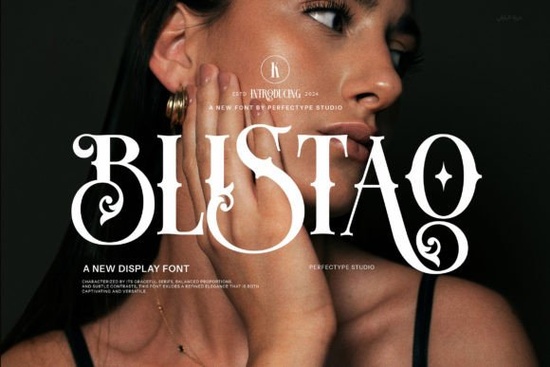
If you're searching for a typeface that channels the bold energy of vintage tattoo lettering, the Blistao Font deserves your attention. This retro serif takes direct inspiration from classic tattoo flash art and old-school signage, giving you a typeface with real character for logos, posters, packaging, and any project that needs a handcrafted, timeless look.
Whether you sell print-on-demand products, design branding for small businesses, or just enjoy experimenting with creative type, Blistao brings a specific visual personality that modern geometric fonts simply can't replicate. Below, we'll look at what makes this font stand out, who it suits best, and how to pair it with other typefaces for the strongest results.
What Does the Blistao Font Actually Look Like?
Blistao is a decorative serif with thick strokes, slightly condensed letterforms, and ornamental details that echo traditional tattoo flash sheets and vintage signage. The uppercase letters carry the most personality, with subtle curves and pointed serifs that give each character a hand-drawn quality.
Key visual traits include:
- Bold, weighty strokes that read clearly at large and medium sizes
- Vintage serif details shaped by early 20th-century lettering traditions
- Retro character shapes that blend naturally into nostalgic or alternative designs
- Decorative flair that doesn't sacrifice legibility
The overall feel sits somewhere between a Western wanted poster and a classic tattoo parlor sign. That balance makes it versatile enough for both gritty, worn layouts and clean, polished compositions.
What Kinds of Projects Suit a Tattoo-Inspired Serif?
You don't need to be a tattoo artist to get real value from this style. Blistao fits well in a surprisingly wide range of design contexts:
- Logo design for barbershops, craft breweries, motorcycle brands, and vintage-style clothing lines
- Poster and flyer layouts for music events, festivals, or retro-themed promotions
- Print-on-demand products like t-shirts, mugs, and tote bags
- Social media graphics that need a bold, attention-grabbing headline font
- Wedding invitations or event stationery with a rustic or vintage theme
If your work already involves blackletter and vintage-inspired typefaces, Blistao slots in naturally alongside them, offering a slightly different texture while keeping the same old-school mood.
How Does Blistao Compare to Other Blackletter and Vintage Fonts?
There are plenty of retro and blackletter fonts available, so it helps to know where Blistao fits in that landscape.
Compared to the Arkhaven Font, which leans heavily into gothic blackletter traditions with sharp, angular forms, Blistao feels warmer and more approachable. If you're exploring options in the blackletter font family, Arkhaven suits dark, dramatic branding, while Blistao carries more of a playful Americana energy.
The Nightmare Gothic Font pushes further into horror and dark fantasy territory. It works well for Halloween designs, heavy metal branding, or anything that needs an intense, moody atmosphere. Blistao doesn't go that dark. Instead, it stays rooted in the warm nostalgia of vintage signage and flash art. Designers who like the gothic aesthetic in their font choices might find Blistao serves as a lighter, more versatile companion.
Then there's the Black Ink Font, which bridges clean modern design with subtle vintage undertones. It has a more understated, editorial quality compared to Blistao's bolder decorative presence. If you appreciate the refined blackletter style of Black Ink, Blistao offers a louder, more expressive alternative for projects that need it.
Who Gets the Most Out of This Font?
Blistao is a natural fit for anyone working in these areas:
- Small business owners building a brand identity with vintage character
- Print-on-demand sellers who need standout typography for apparel and merchandise
- Graphic designers looking for a reliable retro serif across client projects
- Crafters and hobbyists making custom signs, decals, or scrapbook elements
- Social media creators who want bold headlines that stop the scroll
It's especially useful if your work leans into Americana, tattoo culture, retro diner aesthetics, or mid-century design. The letterforms carry enough visual weight to function as standalone display type, so you don't always need an elaborate layout to make it look effective.
What Font Should You Pair With Blistao?
Pairing a decorative font like Blistao with the right secondary typeface makes a real difference. Here are a few approaches that work well:
- A clean sans-serif for body text keeps the focus on Blistao as your headline font
- A simple slab serif creates a cohesive vintage feel without competing details
- A handwritten script adds a personal, artisan quality alongside the bold serif
Avoid pairing Blistao with other heavily decorative or ornamental fonts. Competing details make layouts feel cluttered and reduce readability, especially at smaller sizes.